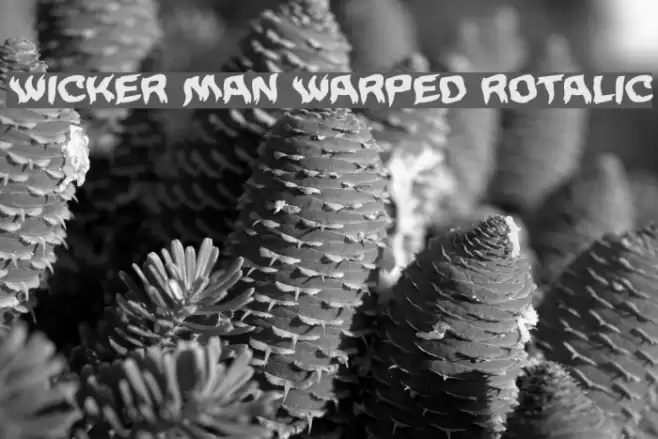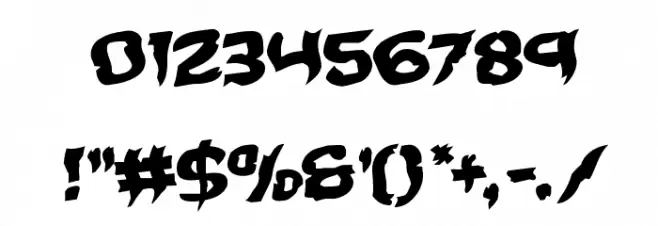
Wicker Man Warped Rotalic Font
Wicker Man Warped Rotalic Description
This font features a bold, jagged design with a distinctly warped and dynamic appearance. The characters have an aggressive, edgy style, reminiscent of horror or thriller themes. Each letter is uniquely distorted, giving the font a chaotic yet cohesive look. The uppercase and lowercase letters maintain a consistent style, with sharp angles and irregular edges. The numbers and special characters follow the same design principles, ensuring uniformity across all glyphs. This font is ideal for creating a dramatic impact, with its high visual energy and distinctive flair.
A bold, jagged, and warped font with an edgy, dynamic style from Uncategorized fonts.
- Proposed Projects: Perfect for horror movie posters, Halloween event flyers, edgy album covers, or any project needing a dramatic and intense visual impact.